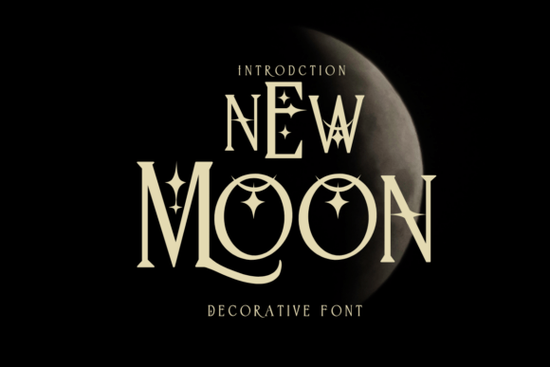
If you have ever looked for a typeface that feels personal without being hard to read, the New Moon Font is worth a closer look. It is a decorative font that strikes a balance between playful curves and clear legibility. You can use it for taking notes, writing a diary, or making greeting cards. But it also works well for banners, mugs, shirts, stationery, and social media posts. Basically, it is one of those fonts you can keep coming back to for all kinds of projects.
What makes the New Moon Font different from other decorative fonts?
Decorative fonts often sacrifice readability for style. That is not the case here. The New Moon Font keeps its letterforms clean enough that you can actually use it for longer text, like a journal entry or a product description. At the same time, it has enough character to make a headline stand out.
It fits into the decorative fonts category, which means it is designed to bring a specific mood to your work. In this case, the mood is soft, slightly whimsical, and approachable. That makes it a solid choice for anyone who wants their text to feel warm without looking childish.
How does it compare to handwritten or script fonts?
Handwritten and script fonts can be beautiful, but they are often hard to read in longer passages. The New Moon Font avoids that problem. It keeps a consistent weight and spacing, so your readers will not have to guess what a letter says. If you have ever tried using a script font for a product label only to find that people could not read it, this font is a better alternative.
It also pairs well with other typefaces. You could use it for headings and combine it with a simple sans-serif for body text. That kind of contrast makes your designs look polished without a lot of extra work.
How can print-on-demand sellers use this font?
If you sell on print-on-demand platforms, you know that the right font can make or break a design. The New Moon Font works well for products where you want a personal touch. Think about these ideas:
- Mugs and drinkware – Short quotes or single words look great in this font. It adds a handmade feel that customers like.
- T-shirts and apparel – Because the letters are readable even at smaller sizes, you can use it for chest prints or sleeve details.
- Greeting cards and stationery – This is where the font really shines. It feels natural for sentimental messages or simple thank-you notes.
- Social media templates – Use it for quote graphics or story highlights. It gives your feed a consistent, friendly look.
Is this font suitable for beginners or just professionals?
Both. That is one of the things that makes decorative fonts like this one so useful. If you are just starting out with design, you do not need to worry about kerning or advanced typography rules. The font does the heavy lifting for you. You can type out your text, choose a color, and it will already look good.
For experienced designers, the New Moon Font gives you a reliable tool for projects that need a soft, approachable voice. You can use it in branding for small businesses, especially ones in the creative or lifestyle space. A bakery, a stationery shop, or a wellness coach could all use this font and have it feel authentic.
What projects work best with the New Moon Font?
Because this is a decorative font, it works best when you use it intentionally. Here are some projects where it fits naturally:
- Diary or journal layouts – The font has a hand-lettered feel that suits personal writing.
- Banners and headers – For blogs, websites, or social media, it adds personality without being distracting.
- Product labels – Small businesses selling handmade goods can use it on tags or packaging.
- Kids' party invitations – It is playful but still readable for parents.
- Quote posters – A short, meaningful phrase in this font can become a wall art piece.
If you are working on a project that needs a different mood, the Butterfly Inside Font offers a lighter, more delicate style. Having both in your library gives you flexibility depending on the client or product.
Quick checklist before you use the New Moon Font in your next project
Here is a simple list to help you get the best results:
- Test readability at different sizes. Print a sample or view it on screen at the size you plan to use.
- Pair it with a simple font. Use this for headings or short text, and a clean sans-serif for body copy.
Next time you start a project and want a typeface that feels personal but stays readable, give the New Moon Font a try. It is a simple way to add warmth to your work without overcomplicating the design.